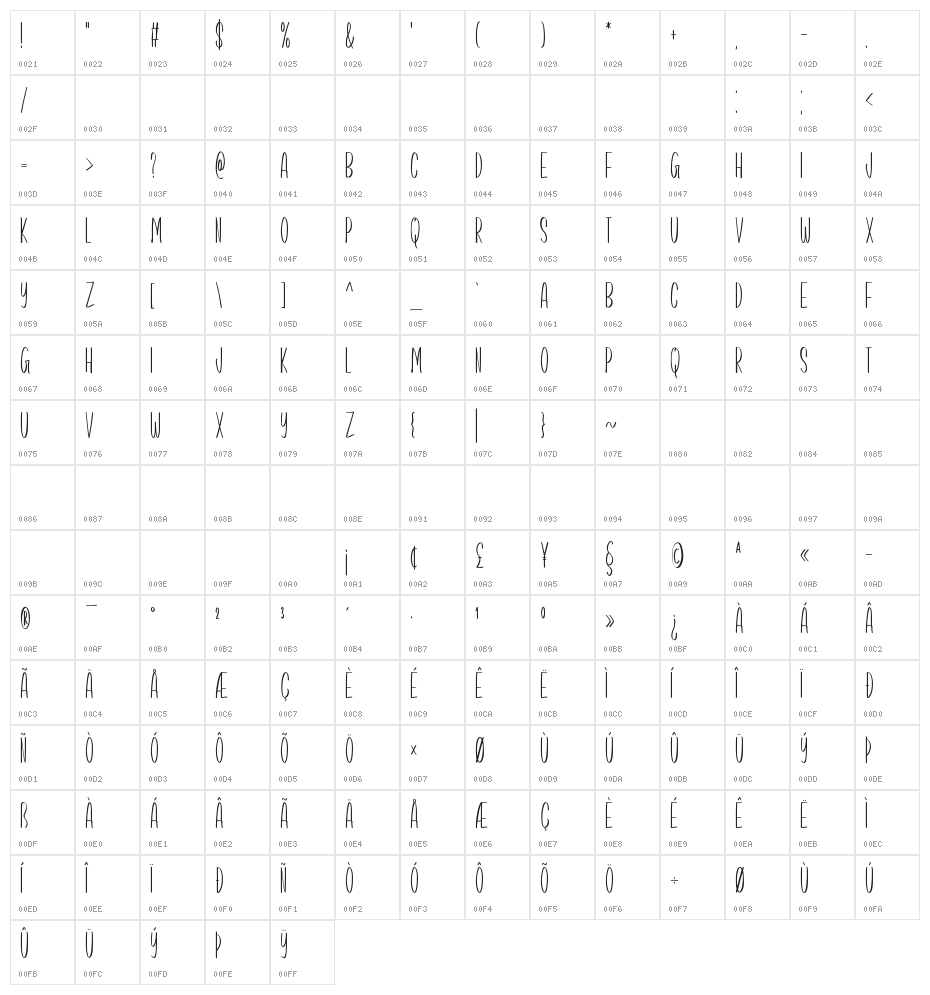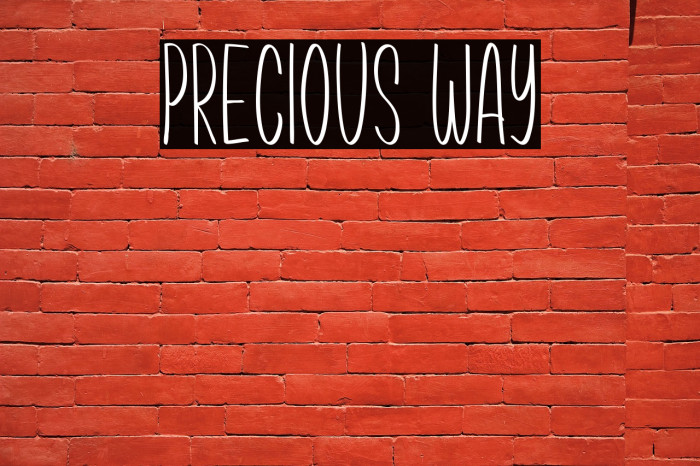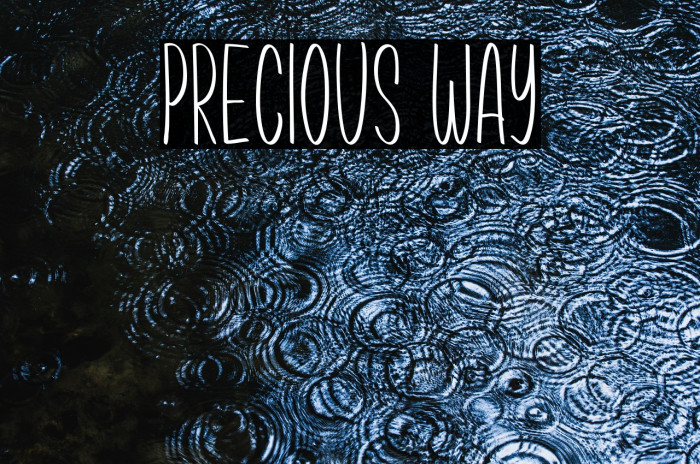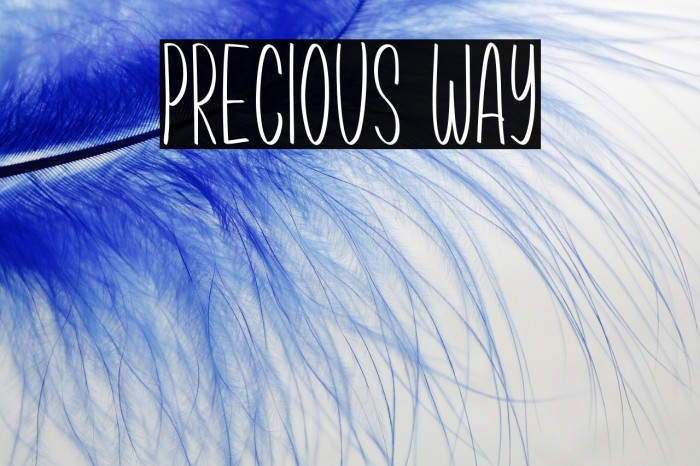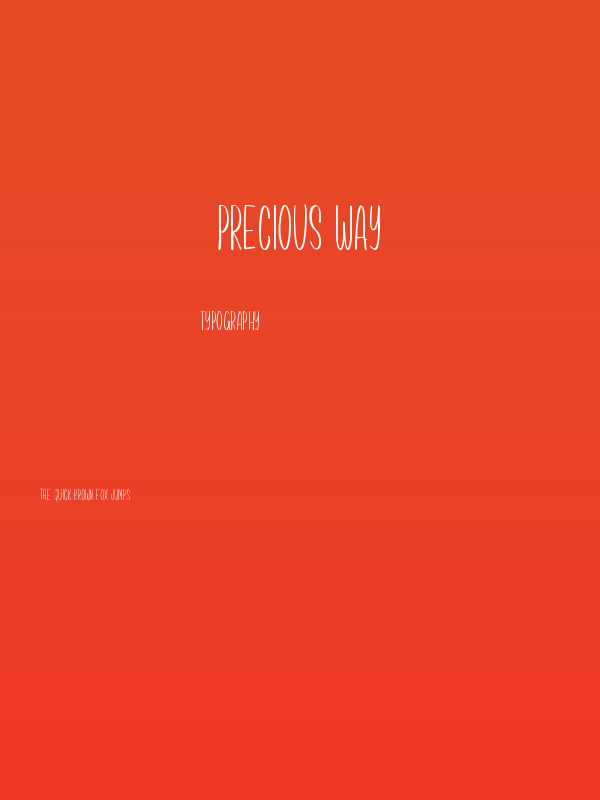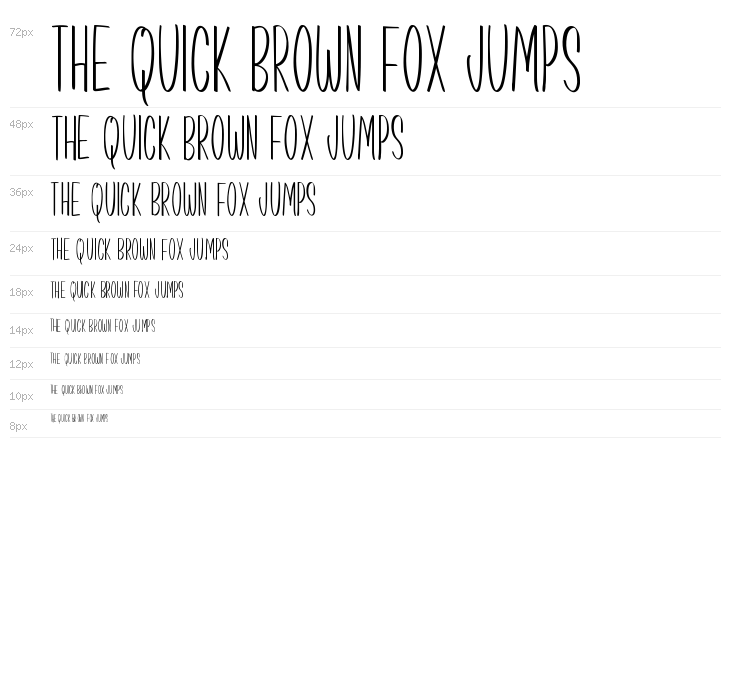
Precious Way Font
| Stile generale | Casual and playful |
| Caso d'uso | Headlines, Invitations, Personal projects |
| Progetti proposti | Ideal for greeting cards, invitations, personal branding, and creative projects that require a friendly and informal touch. |